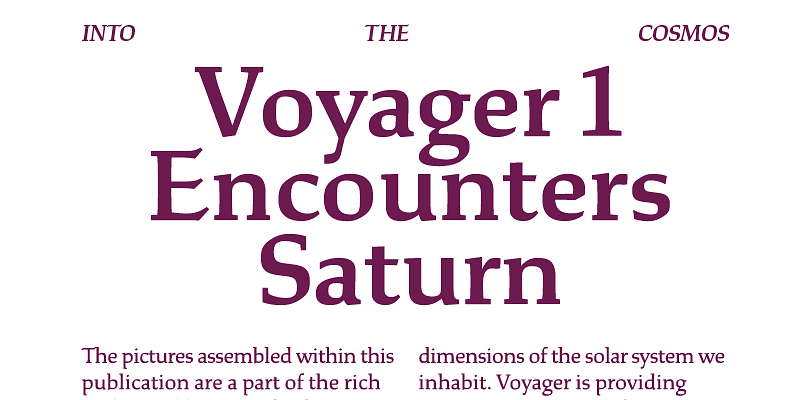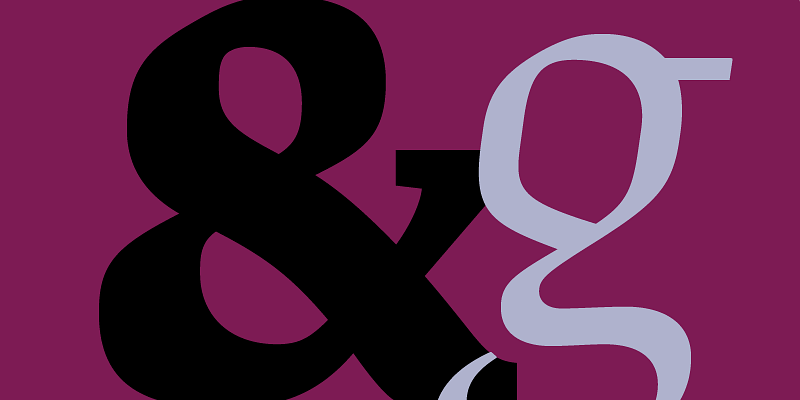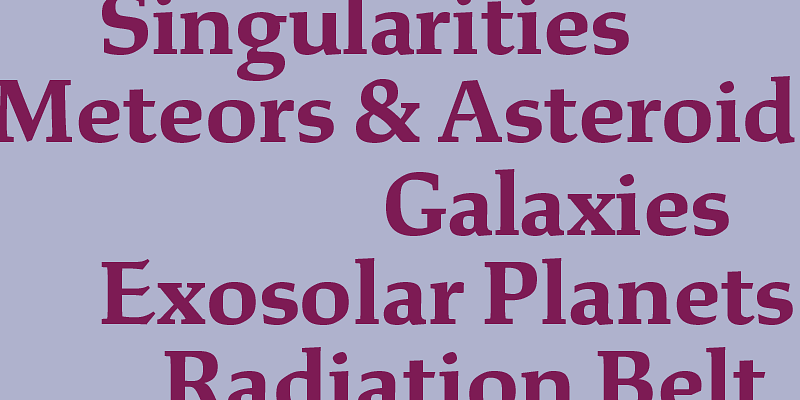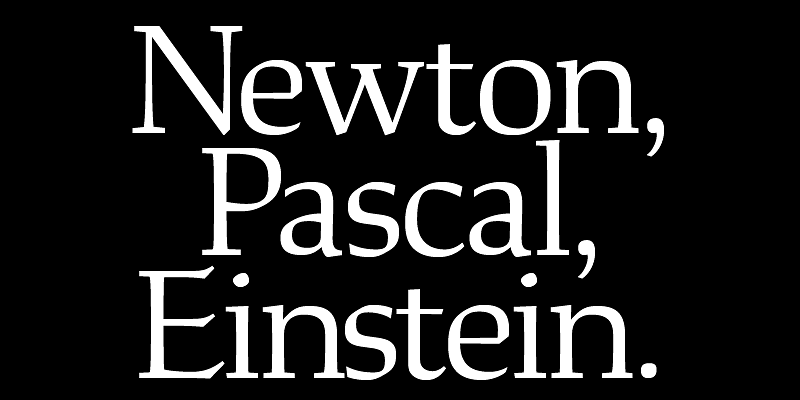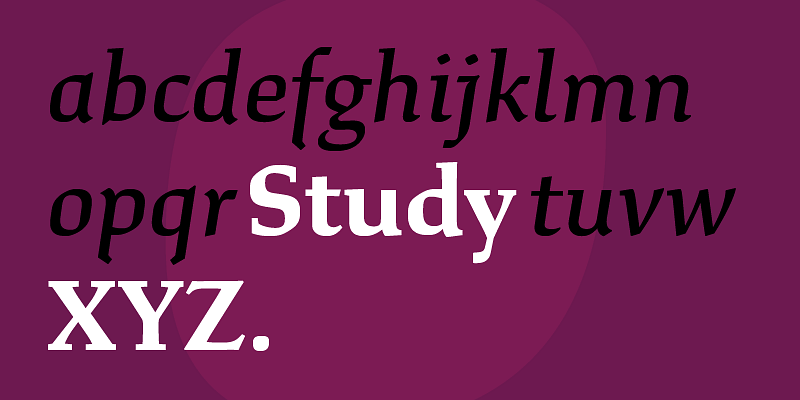
An elegant blend of typographic structure with calligraphic details gives Study its distinguished charm. Dramatic twists and turns dominate at large sizes, yet melt into paragraph text. Bright counterforms and wide proportions make reading a pleasure in print or on screen. Study’s fundamental sense of humanity grows from a distinctive combination of quirks, such as the poised spine of S, the wide-eyed e, and the muscular limbs of k. In the lyrical italic lowercase, rustic serifs give way to quick pen strokes.
Study is based on a hand-drawn alphabet published in 1968 by Czech-American designer and wood engraver Rudolph Ruzicka. In digital form, his concept has matured into a robust type family of twelve styles, well-equipped for modern typesetting.